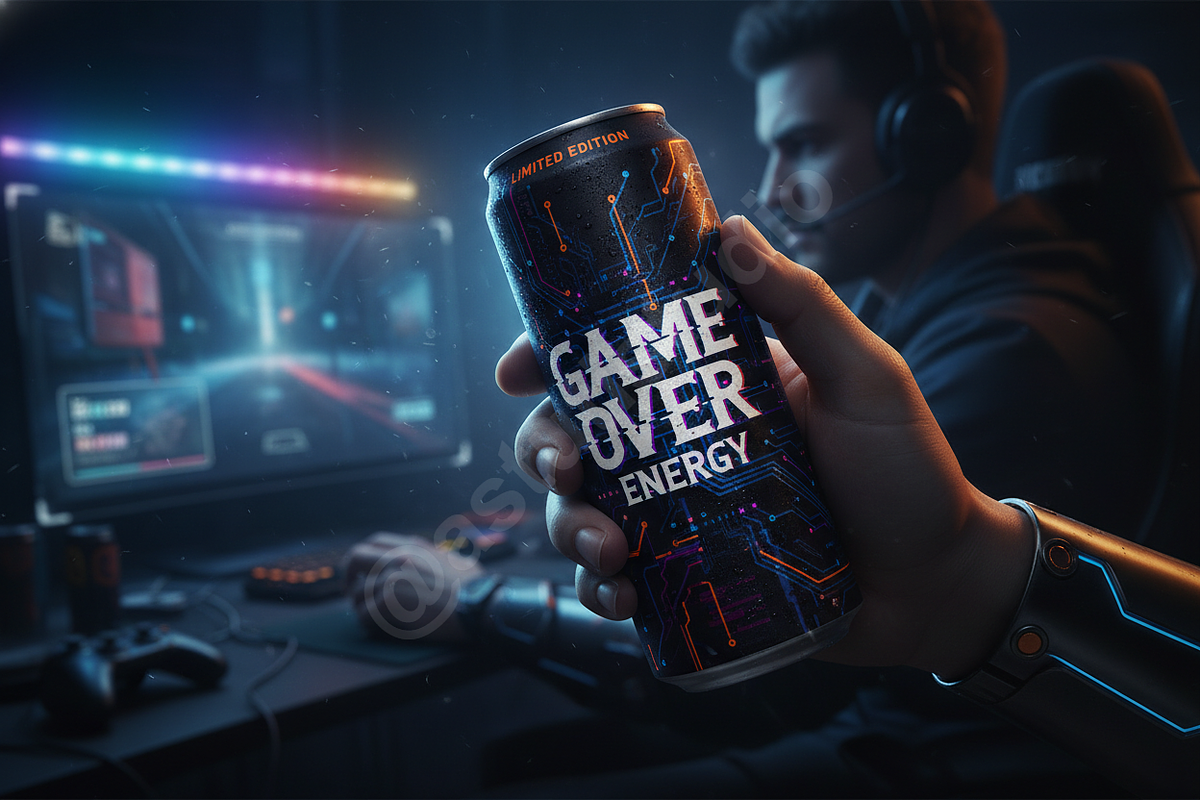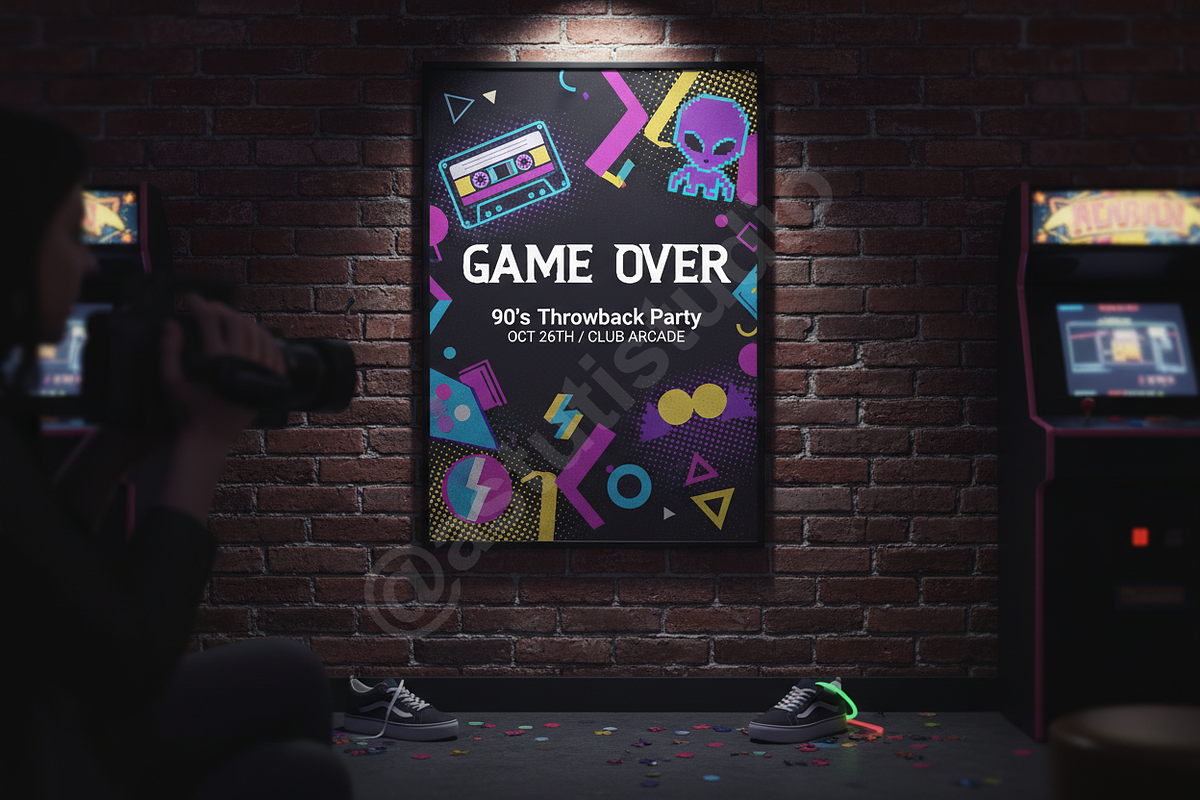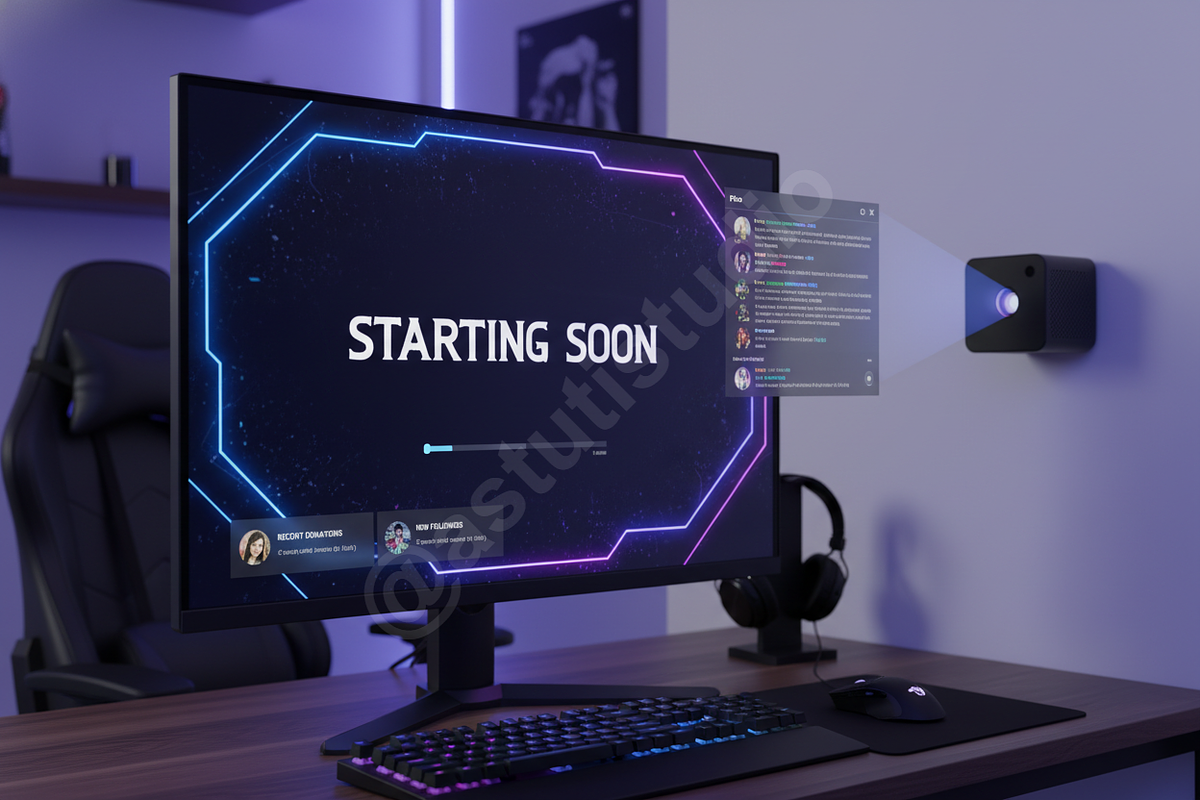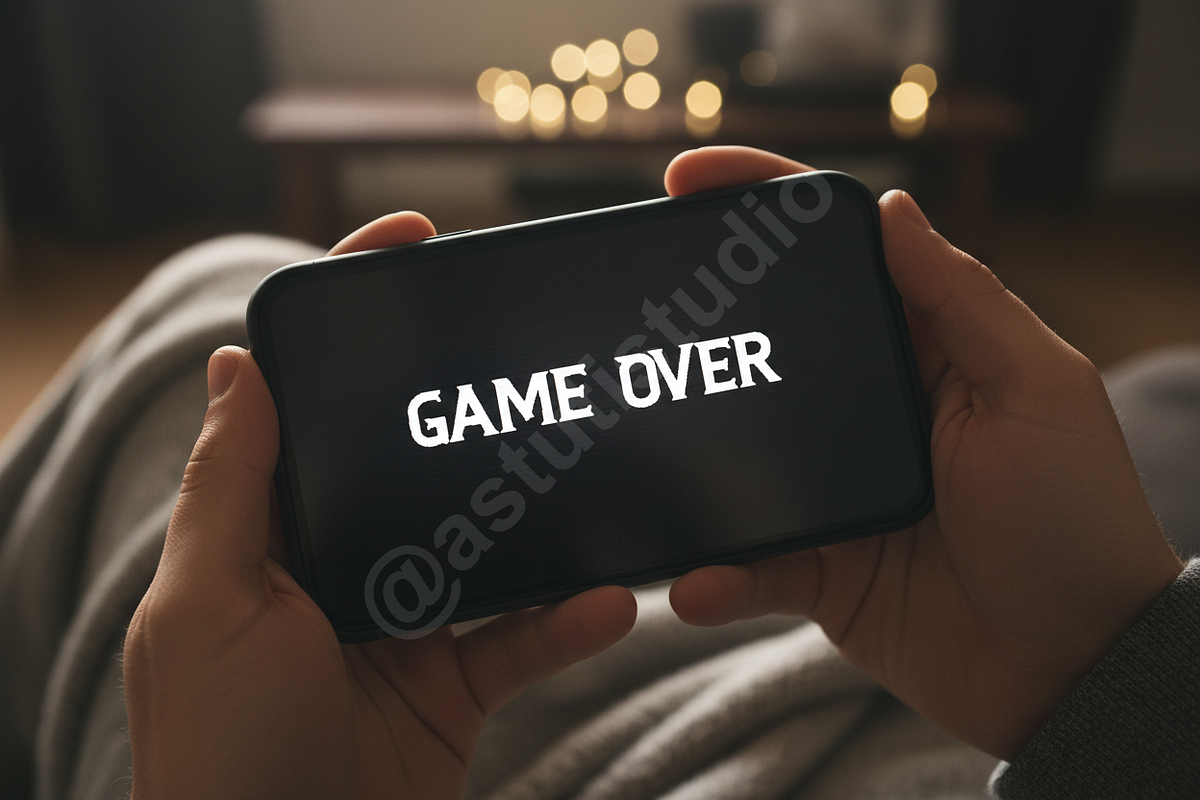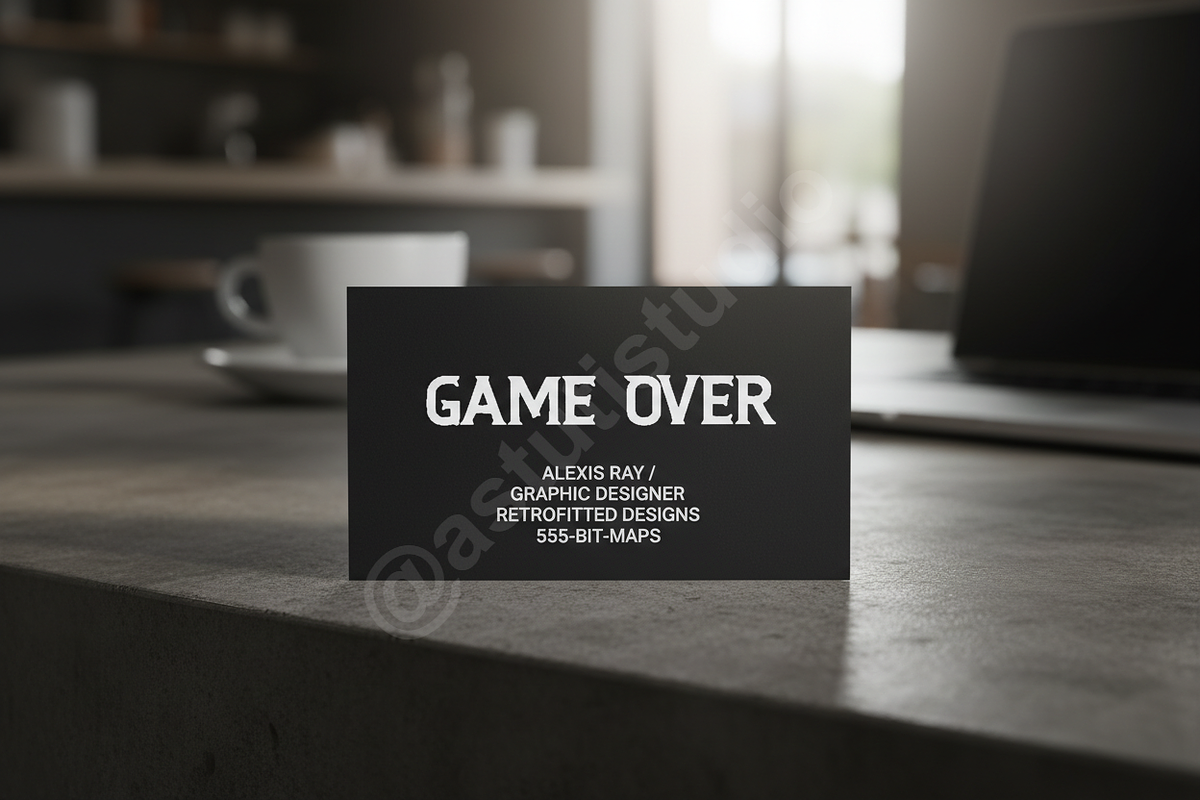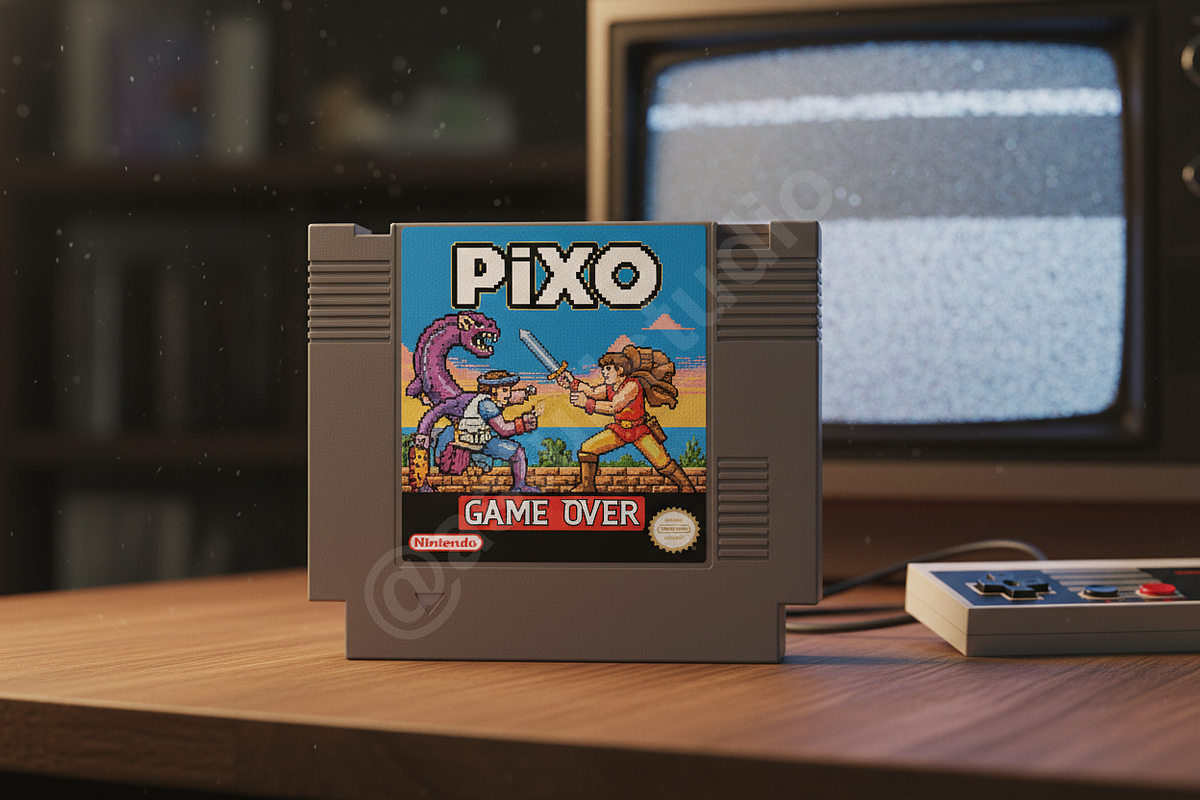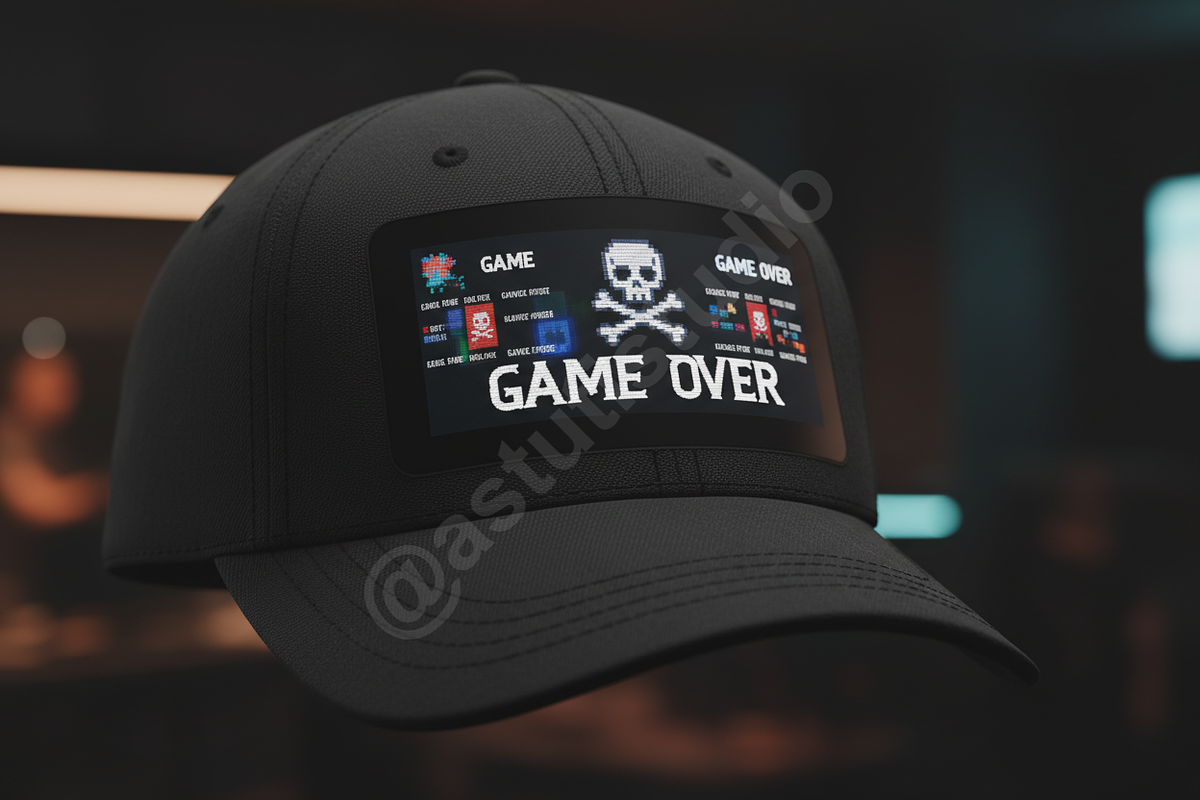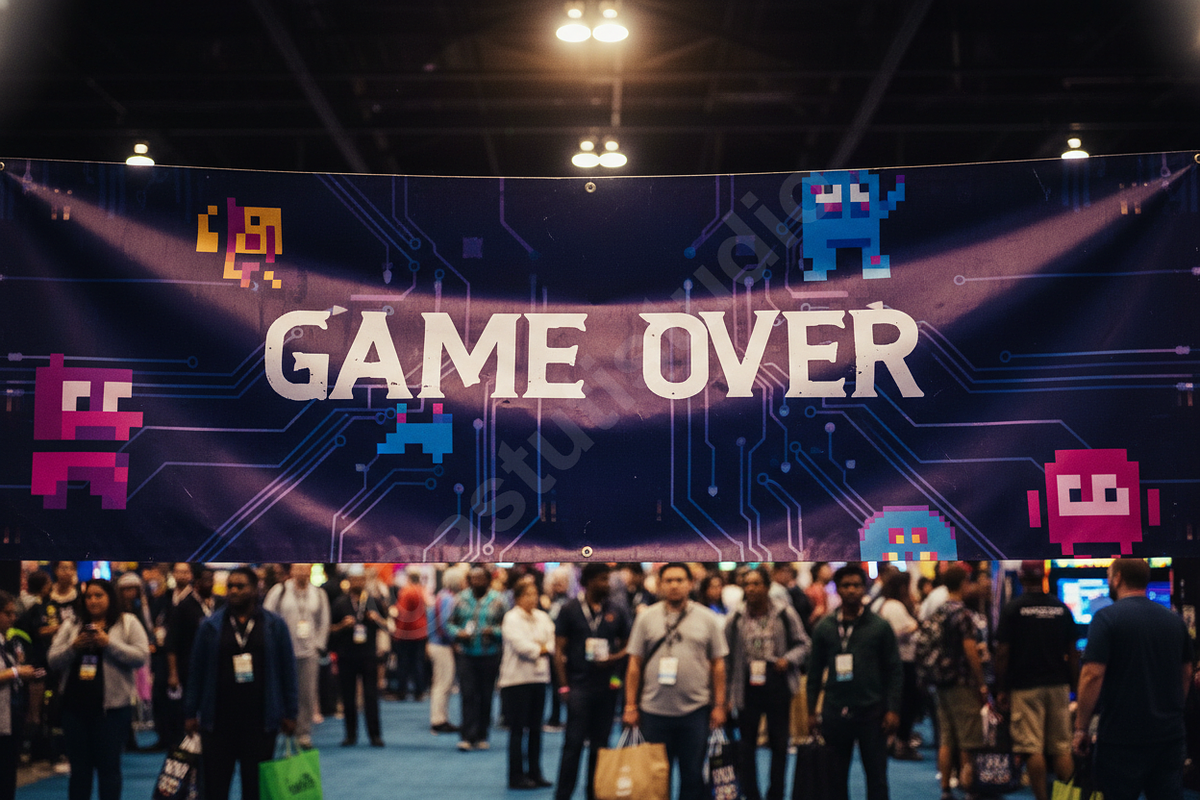
Pixo | Modern Luxury Editorial Typef
Introduction Elevate your visual identity with Pixo, a premium typeface meticulously crafted for the modern aesthetic. Blending geometric precision with high-fashion elegance, Pixo is designed for those who demand sophistication in every stroke. Whether you are crafting a luxury brand identity, designing a high-end editorial spread, or curating a polished social media presence, this font provides the professional edge your projects deserve.
- Clean, high-contrast geometric architecture
- Extensive ligature set for unique character combinations
- Comprehensive multilingual support for global reach
- Perfectly balanced kerning for professional-grade readability
- Optimized for both large-scale display and body text
- Full uppercase and lowercase character set
- Numerals, punctuation, and specialized symbols